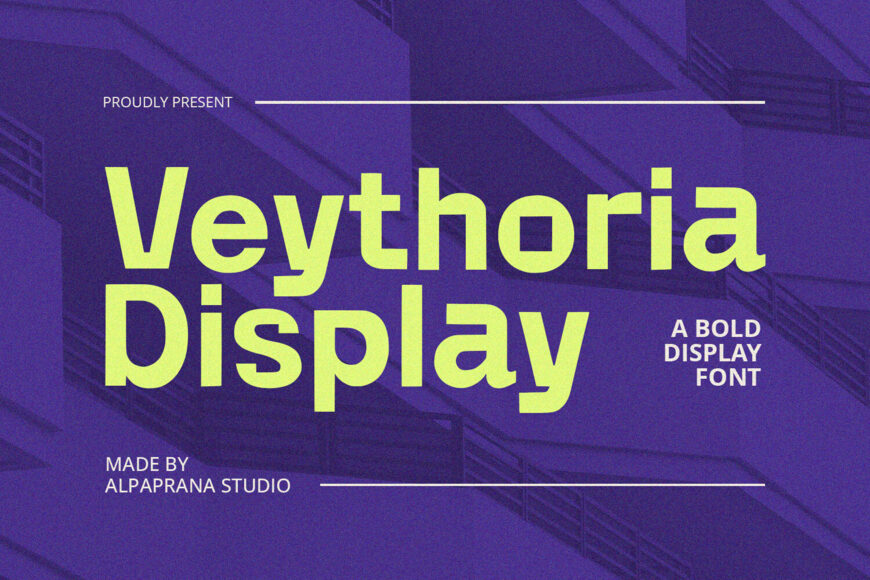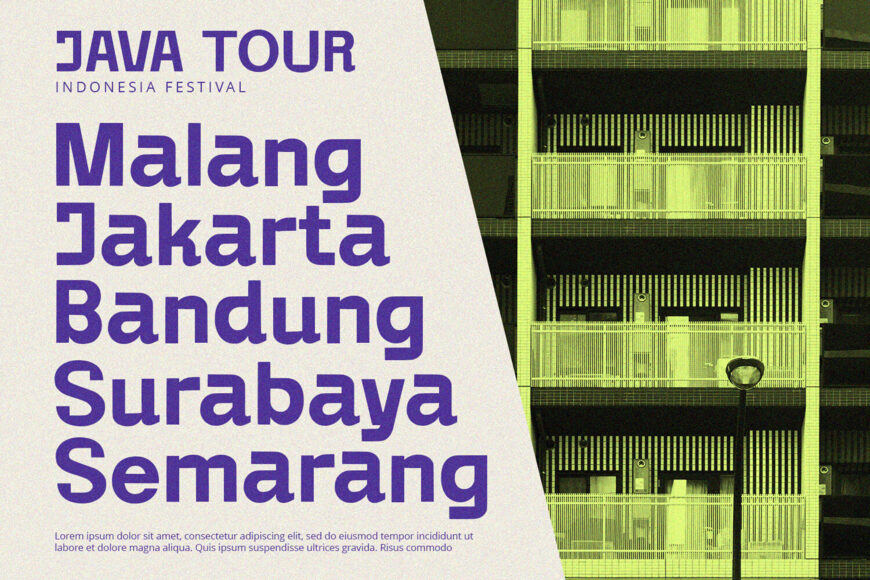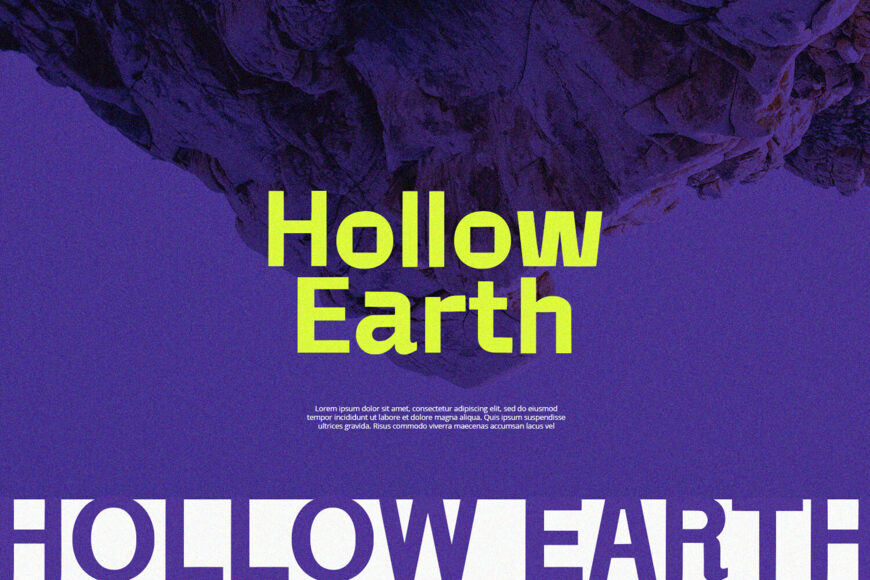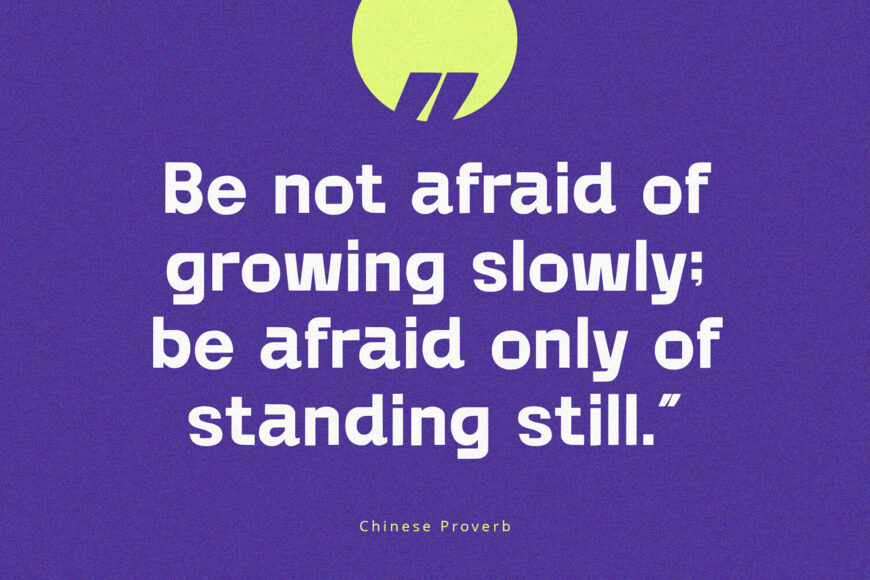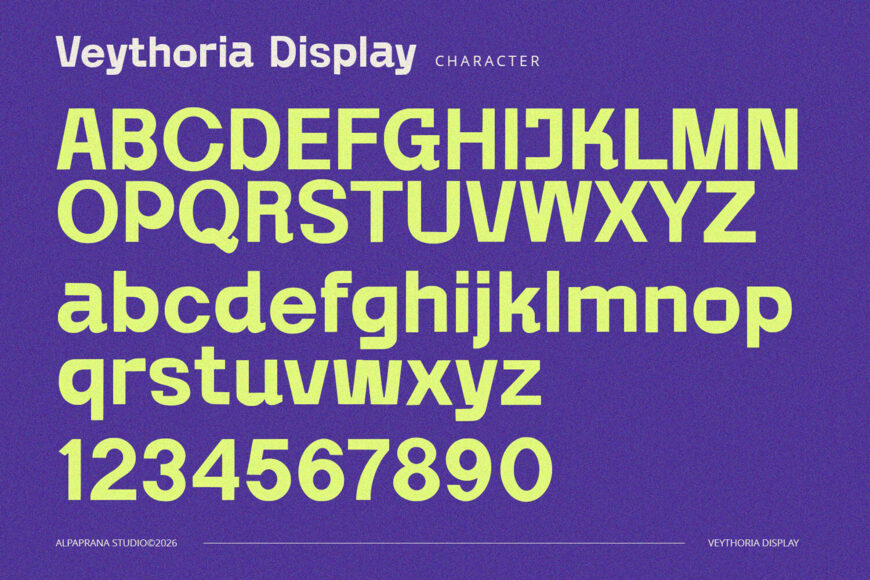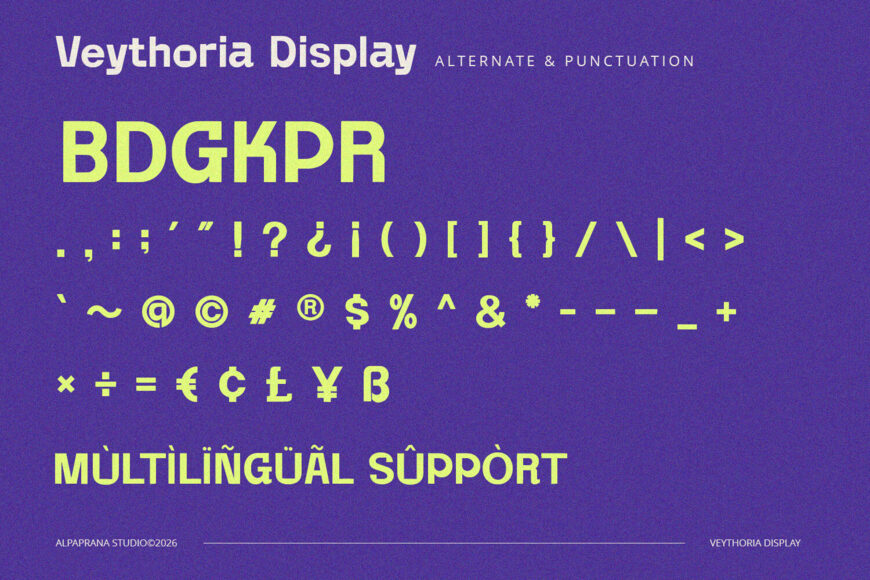
Veythoria Font
Veythoria is a modern display font ideal for various design projects, including branding, logos, and packaging. It’s perfect for creating eye-catching visuals on posters, magazines, clothing, and more. Its versatility also makes it suitable for book covers, photography, and special events, allowing designers to add a touch of sophistication to their work.